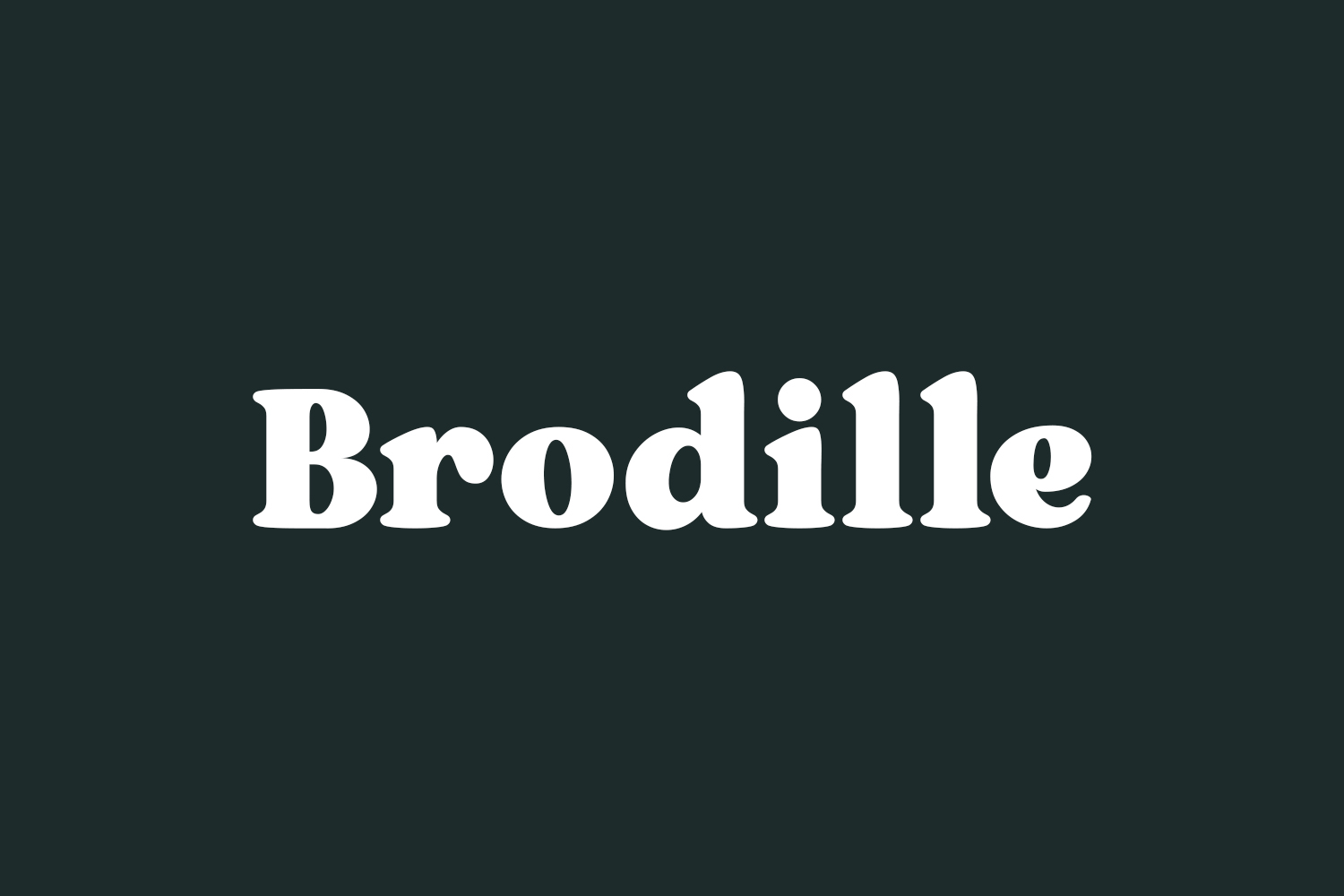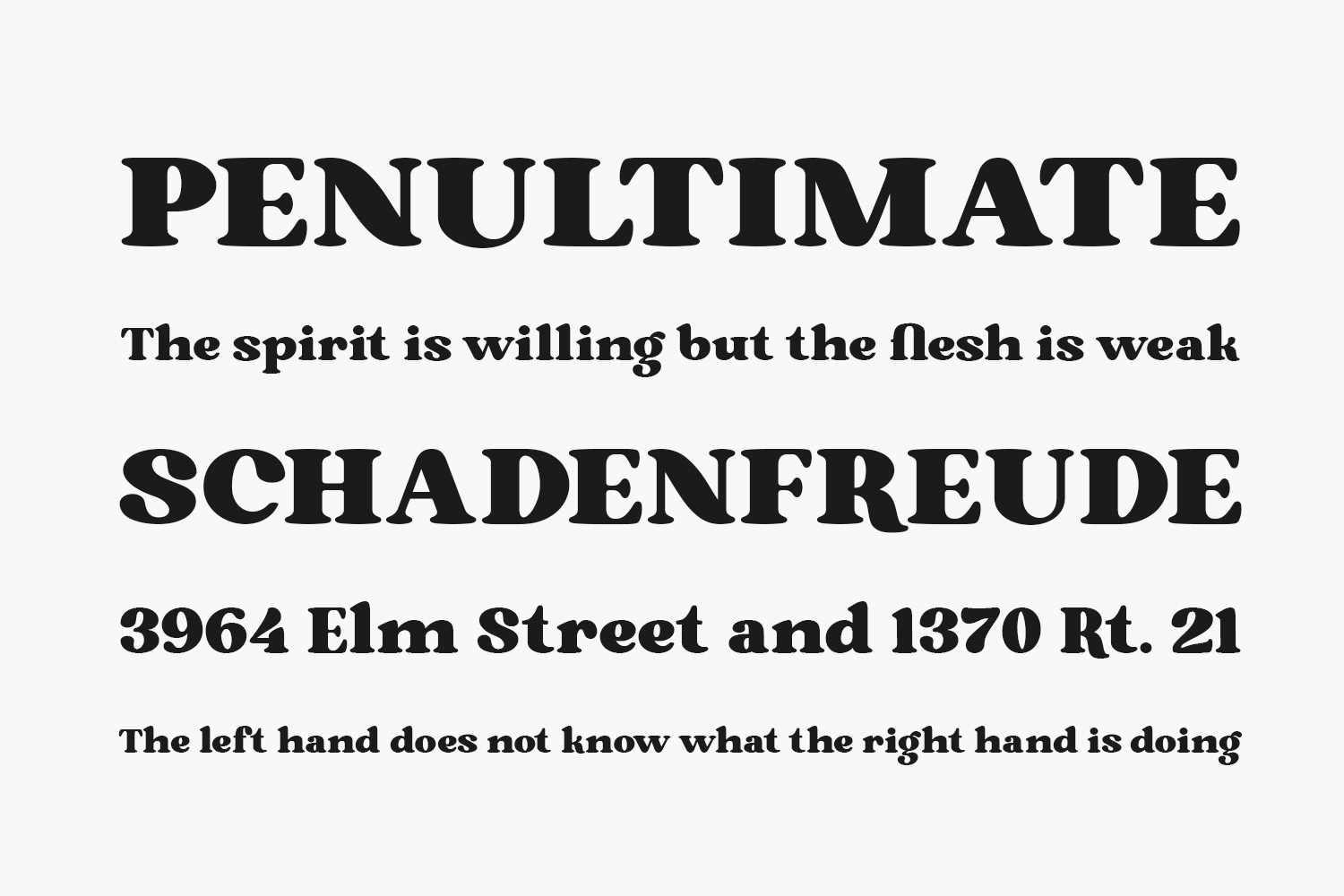
Introducing Brodille Free Font, a display font that exudes retro-glam allure. Remarkably stylish and on-trend, this font seamlessly combines modern elegance with a distinctive vintage charm. Elevate your designs with the unique appeal of Brodille. Download the font for free if you need it for personal use or purchase the full version for commercial use.